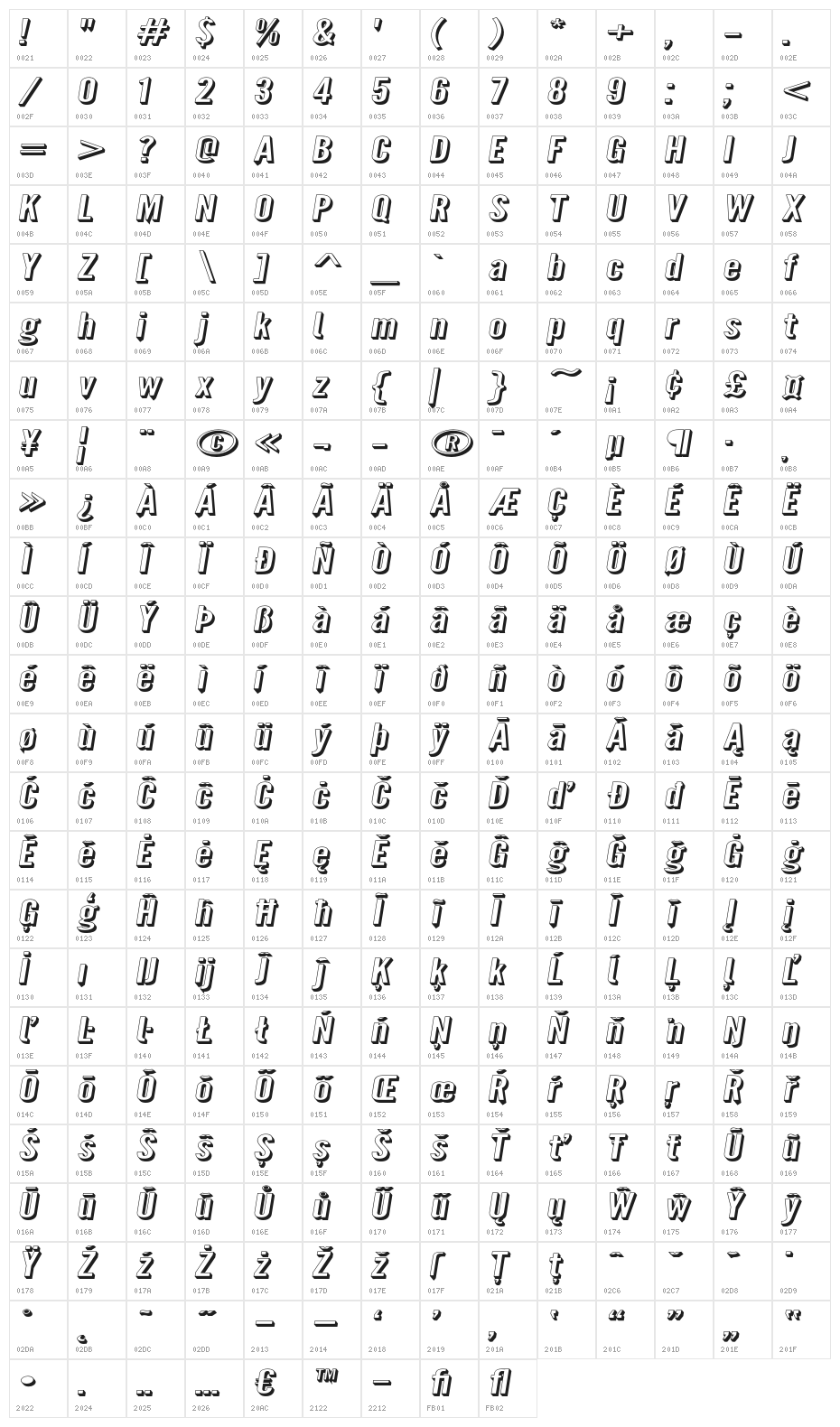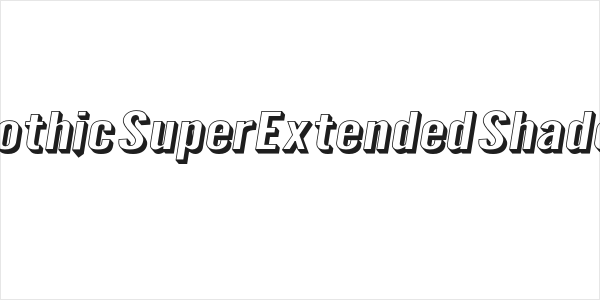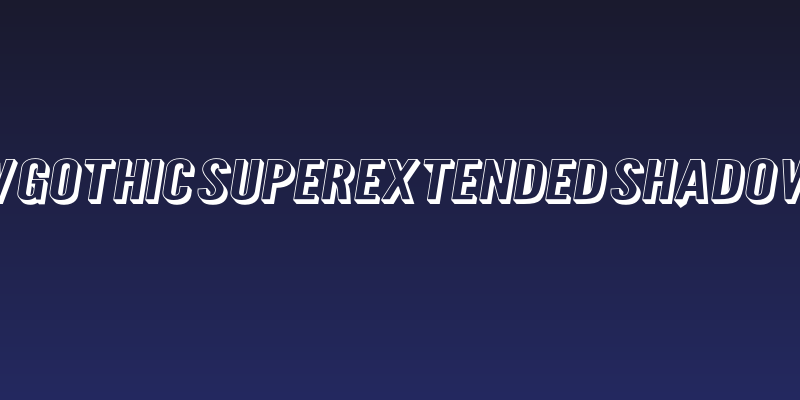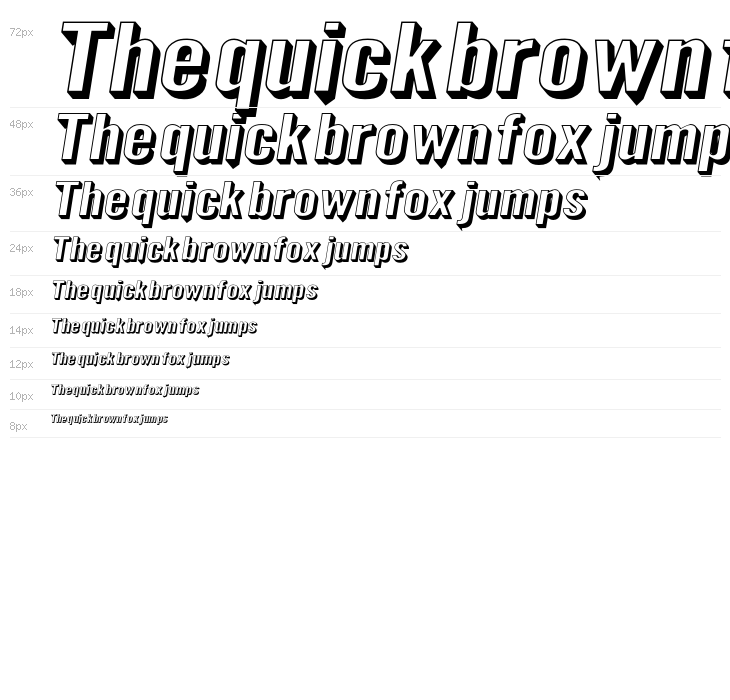
Warsaw Gothic SuperExtended Shadow Oblique Font
Warsaw Gothic SuperExtended Shadow Oblique Description
This font features a bold and dynamic design with a strong shadow effect that gives it a three-dimensional appearance. The letters are oblique, adding a sense of movement and energy. The uppercase and lowercase characters maintain a consistent style, with sharp edges and clean lines. The numerals and special characters are equally bold, making them stand out. This font's extended width and shadow effect make it ideal for attention-grabbing designs.
| Proposed Projects | Ideal for posters, headlines, logos, and any design that requires a strong visual impact. |